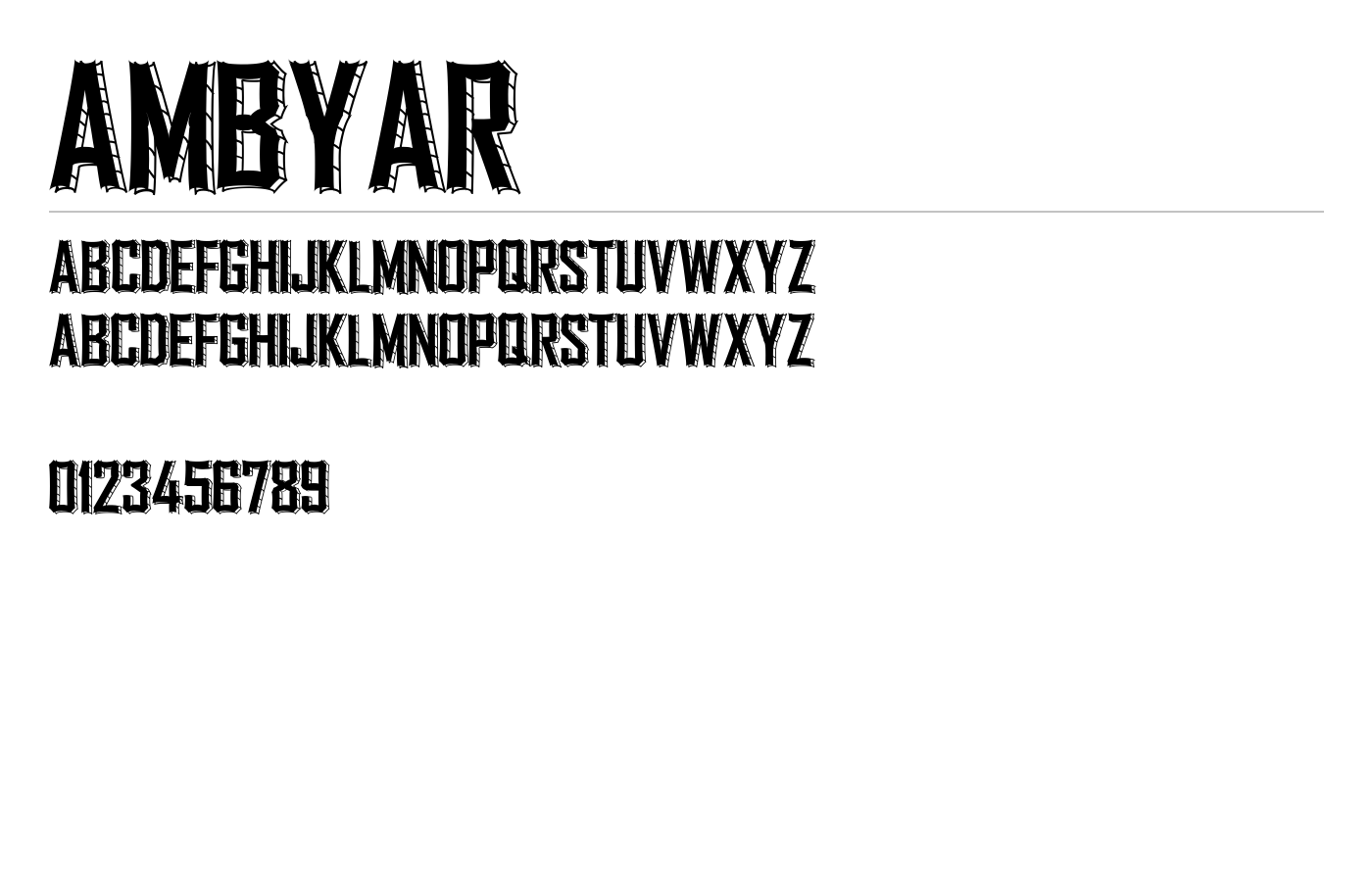
Ambyar is a bold, condensed display font with a striking, jagged outline that gives it a vintage, rugged character well-suited for eye-catching headlines and logos. Its sharp, geometric shapes and all-caps design deliver a strong, adventurous feel, making it ideal for branding, posters, and packaging that seek to convey energy and distinctiveness.
Ambyar Font
About Ambyar Font